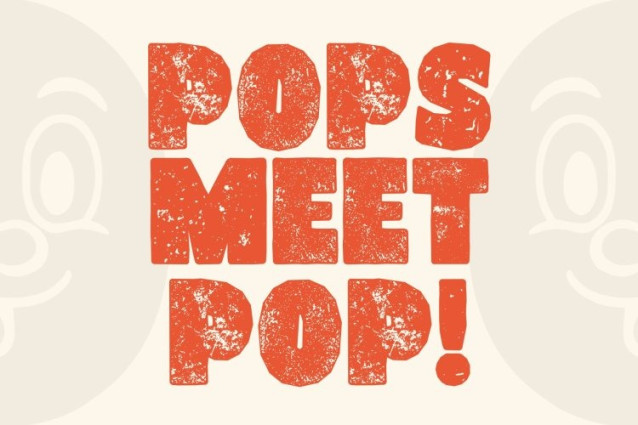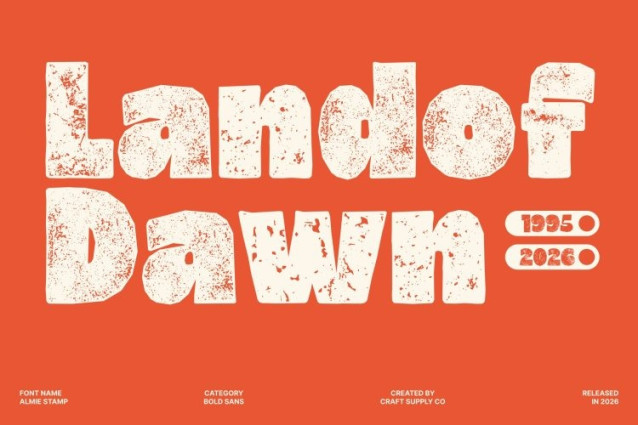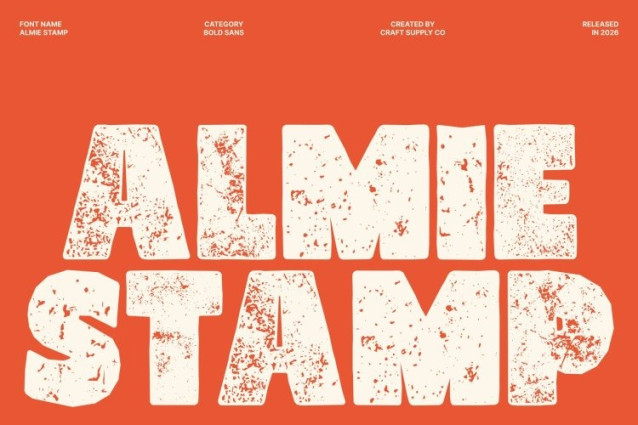
Almie Stamp Font
Almie Stamp Font – This is a bold sans serif font that blends funky energy with a subtle stamped texture. Its strong, confident strokes remain dynamic and playful, while gentle ink irregularities and lightly distressed edges introduce a handcrafted, print-inspired feel. This combination creates a font that feels expressive, lively, and full of character.
Bold Structure with Playful Edge
The solid letterforms and striking weight give undeniable presence. Funky curves and distinctive details inject individuality into every character, while the stamped finish adds warmth and depth. The result is typography that feels bold yet approachable modern yet slightly vintage in tone.
Professional Impact with Creative Flair
This font maintains a professional foundation despite its playful personality. It works beautifully for branding, corporate presentations, business logos, packaging, and promotional materials that need to stand out while remaining polished. The textured effect enhances visual interest without compromising clarity.
Versatile, Dynamic, and Full of Expression
Designed to perform well at both large and small sizes, this font adapts seamlessly from headlines and banners to supporting text and digital layouts. Its bold funky style combined with a subtle stamped finish ensures every design feels confident, energetic, and memorably distinctive.